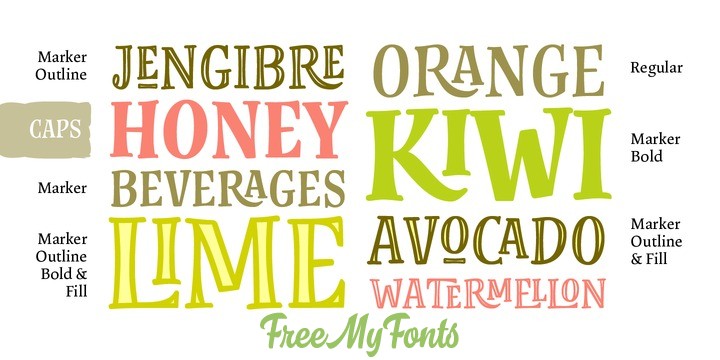
About this font family
The script font will work in your app as you see in the posters above. Default positional forms appear while you are writing when Standard Ligatures and Contextual Alternates features are on. Just keep them activated and let Limon Script do the rest. It warrants that all the connections will look good. Also, you can activate stylistic alternates, swash, titling and stylistic sets to have options for capitals, initials and terminals. Don’t forget to download the instructions from the Gallery Section. More…
After the success of Blend, Typesenses presents Limon, its fresher handmade font collection. 100% hand-drawn by Sabrina M Lopez, with the collaboration of Sol Suarez, who illustrated the dingbats, and Guido Ferreyra, who made the font production and programming of the Script Font. This huge project took 18 months to be finished. As we believe in high quality, we took care of every detail, specially the connections of the scripts font which are very accurate. Every combination of letters is designed, all of them: No matter what you write, it will always look good. Limon speaks your language! It includes the complete diacritic set for Basic Latin and Western, Central and South Eastern European.
As springtime is blooming, fresh aroma is in the air. The sun shines brightly, painting things in yellow -lemon yellow, perhaps-. A well-being sensation is all around. Handcrafted spirit and organic products are trending now. Limon (Spanish word for Lemon) is the appropriate font to this environment. Use Limon and squeeze a touch of homemade taste on your work this season!
– Script Font Regular, Bold, Outline and the Fill for that outline. Every stroke on the same letter has a different slant which makes the rhythm more natural. To keep that calligraphic rhythm as much as possible, Limon Script has lots of alternates and combinations. As it is a SMART SCRIPT, initial and ending letters appear by default while you are writing, as well as the ligatures between the letters. Standard Ligatures and Contextual Alternates features must be active while using this font ALWAYS.
Besides, it includes alternative lowercase letters for the beginning and ending of the word and up to four alternates for each Uppercase letter (7 Stylistic Sets). Additionally, two options of figures: oldstyle and lining. Each Script Font reaches a total of more than 2900 glyphs (languages for every alternate included). We do suggest to use professional applications that widely support Open Type, like Adobe InDesign or Adobe Illustrator. Take a look at the User Guide in the Gallery Section.
– Roman Caps Regular. As everything we do, it has a handmade look and feel, because we know that the human touch makes all the difference. We also include a Marker style to stress this idea. It comes in Regular, Bold, Outline and the Fill for that outline. All these fonts have Discretional Ligatures (dlig) and a Stylistic Set of underlined vowels.
– Didone Caps. A little bit more formal option with its Outline version and the Fill for that outline.
– Dingbats. Elements of nature are included, like flowers, feathers, leafs, petals, butterflies, hearths, among others. Additionally, there is a Fill font to paint them.
Although the font specimen is flavored with the visual universe of natural and organic philosophy, it is only a metaphor. You can create your own look and use Limon for logos, magazines, menus, books, invitations, wedding/greeting cards, stationery, packaging, labels, winery, etc.
And remember: When life gives you Limon, make a beautiful design!